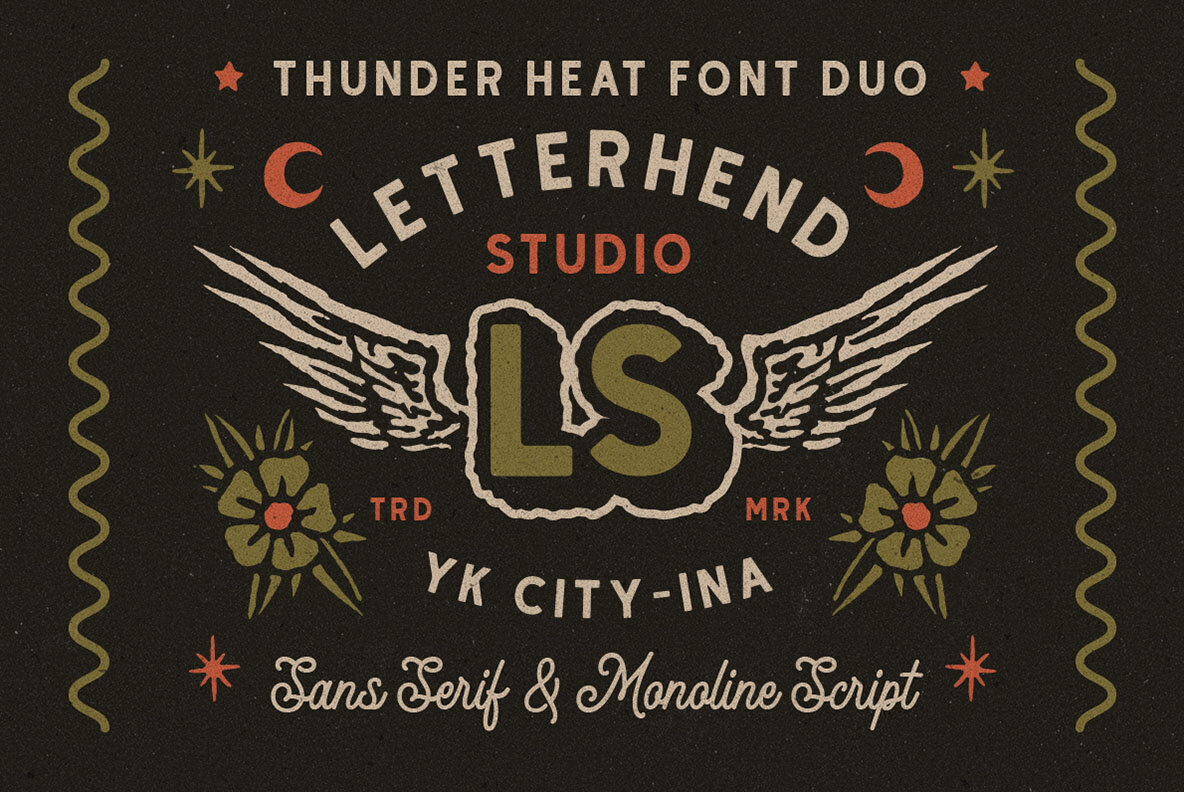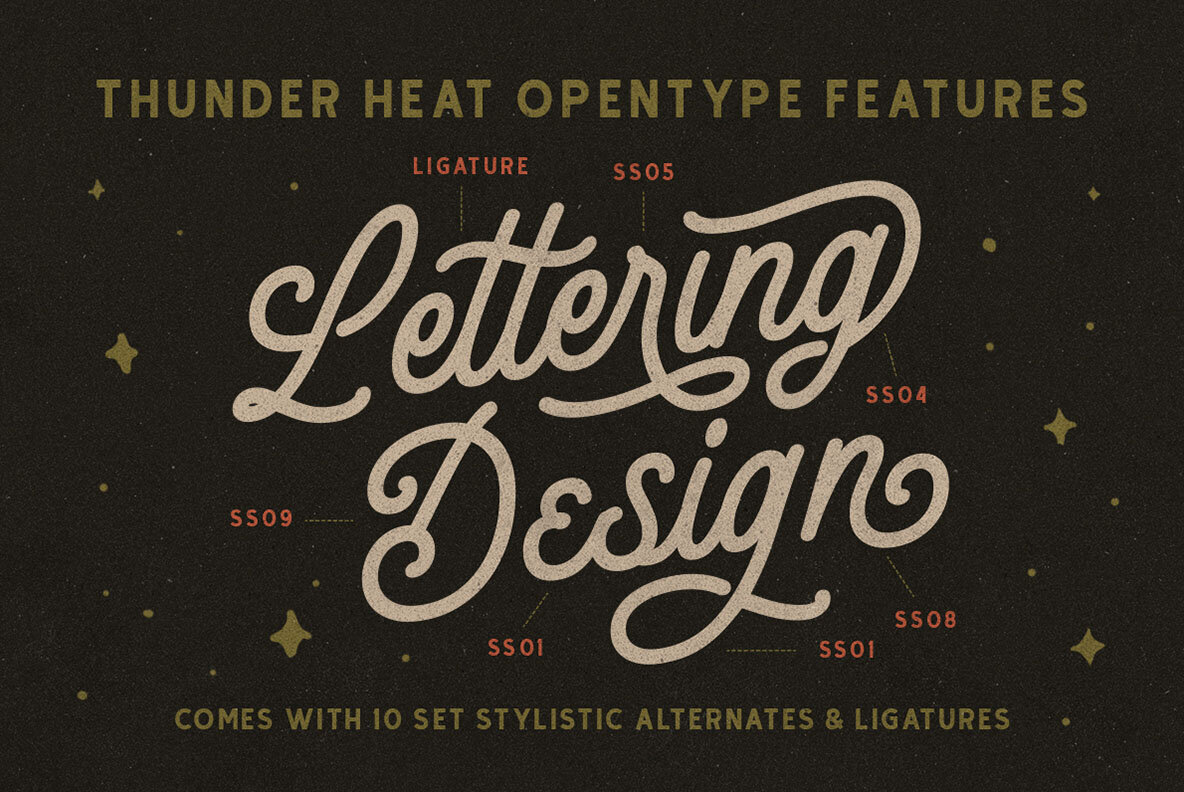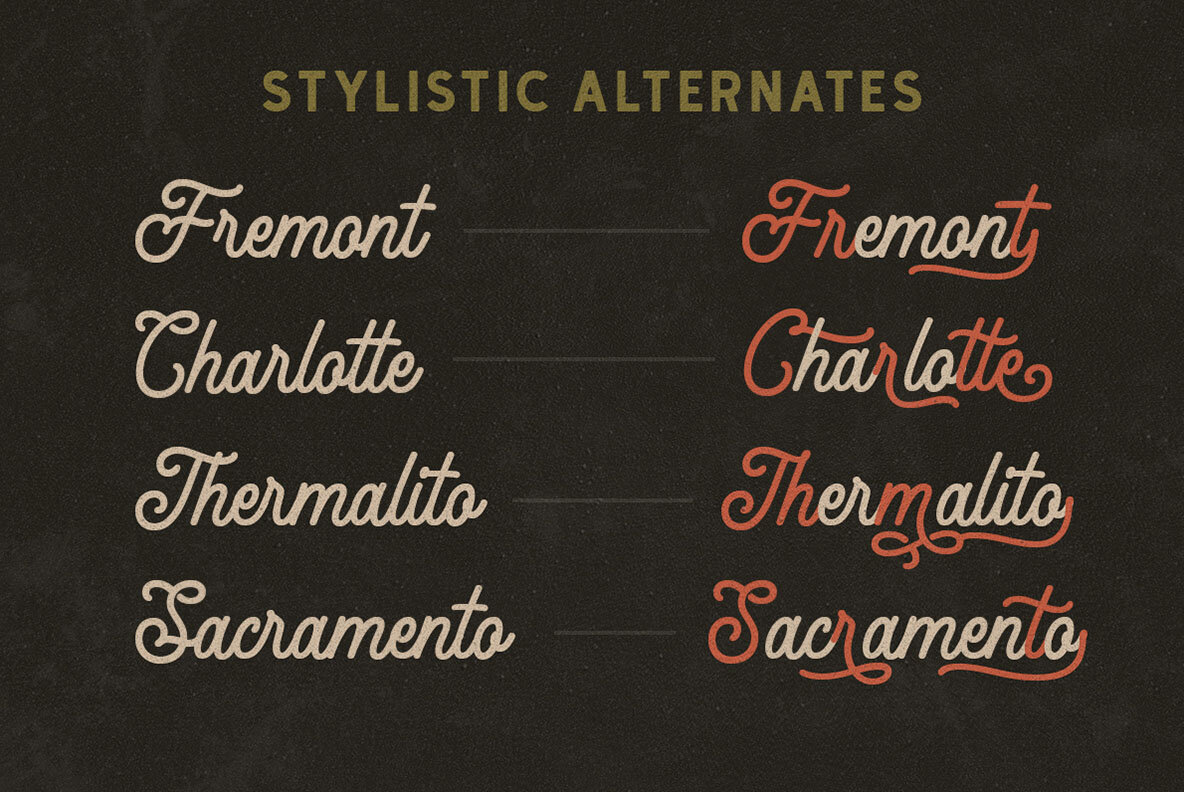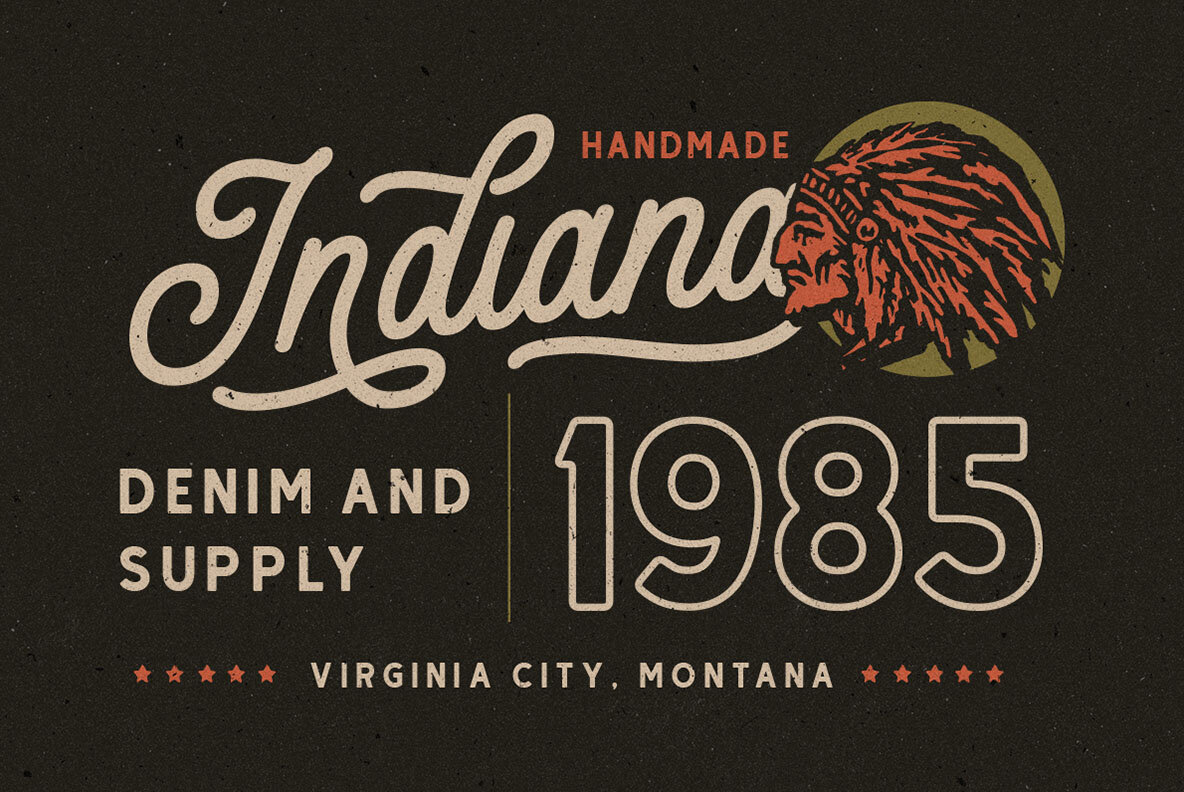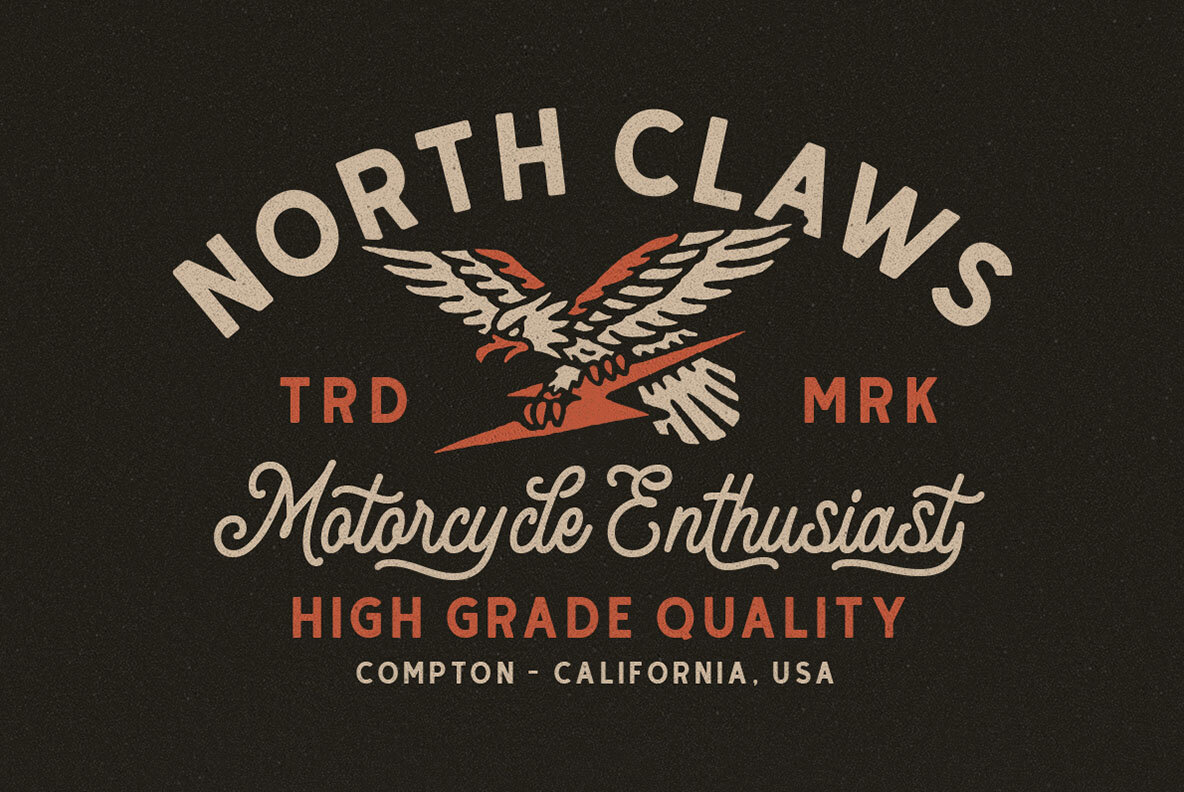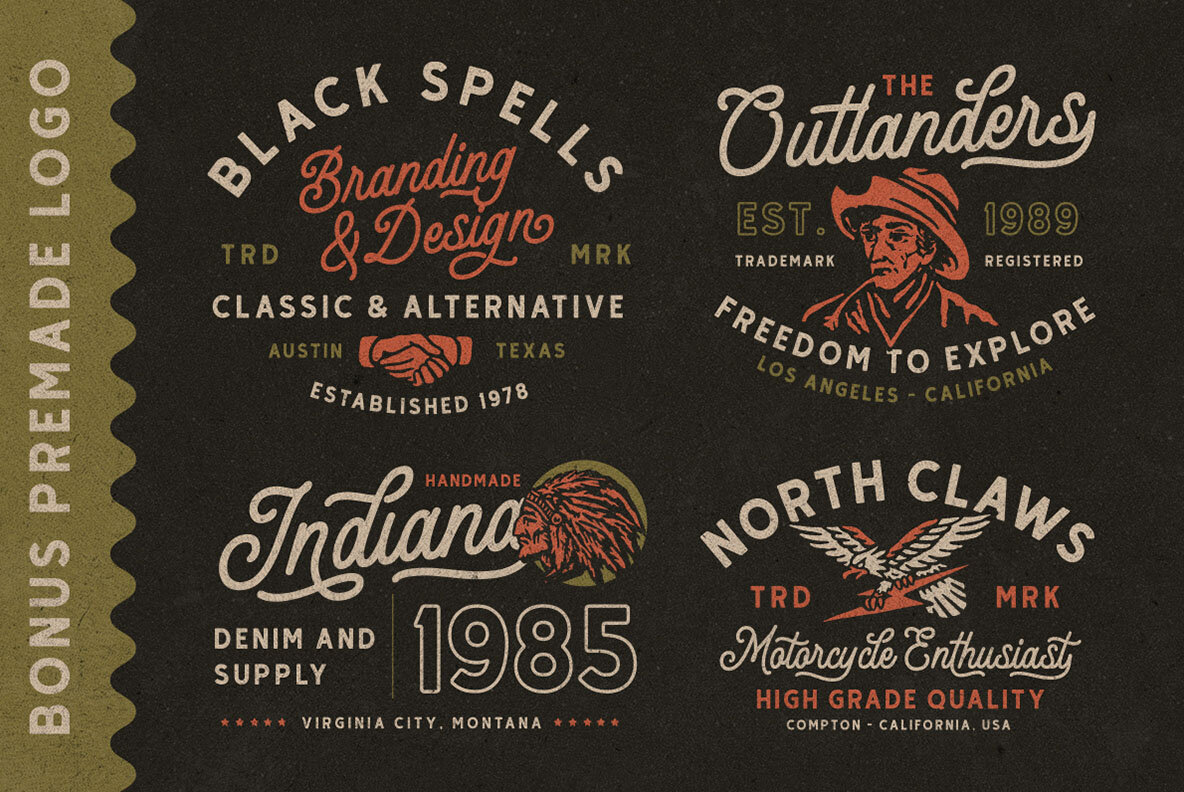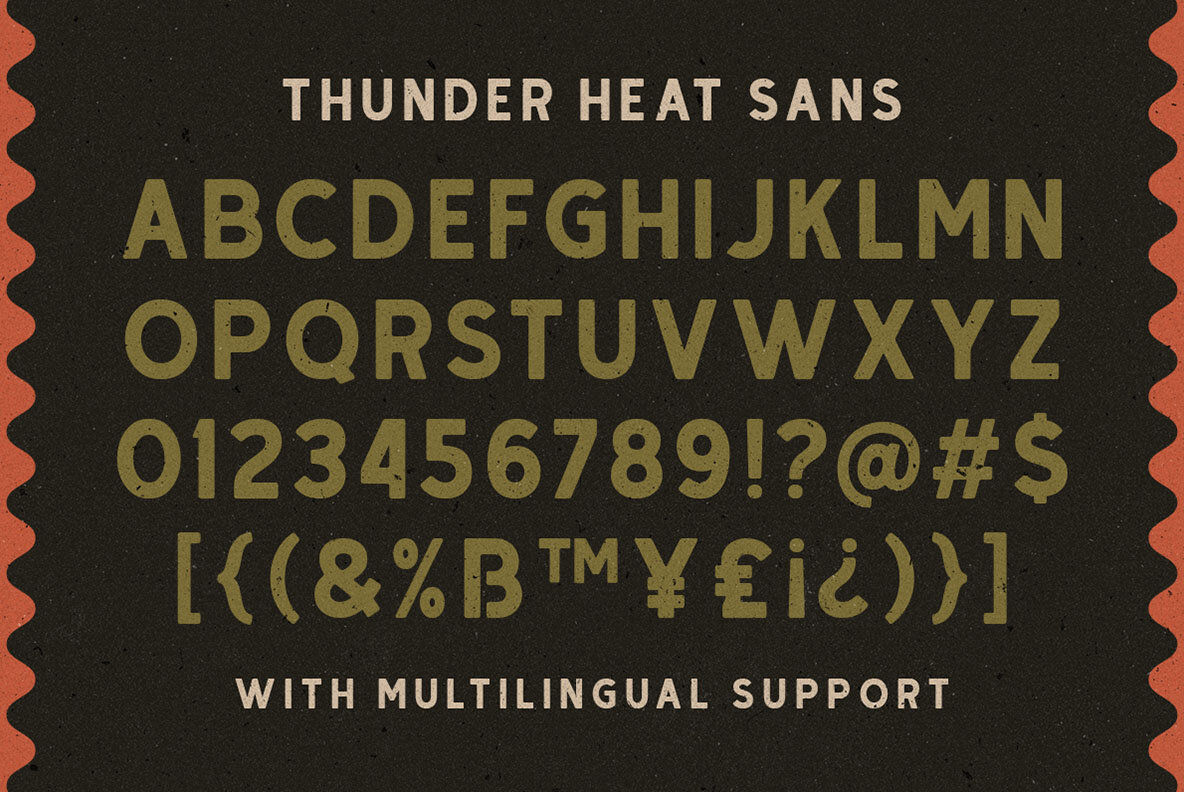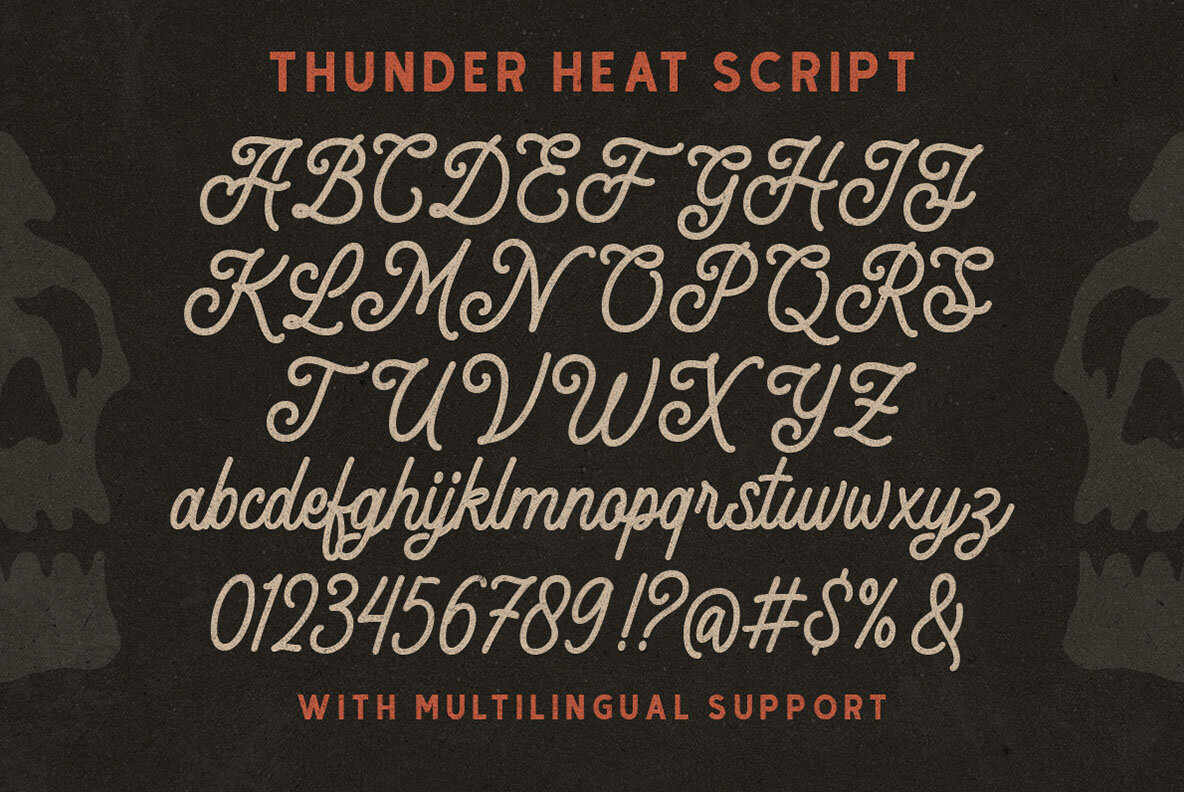
Thunder Heat Font
Thunder Heat offers a dynamic monoline font duo characterized by its classic appeal. This typeface allows flexibility, enabling you to switch between sans serif and script styles to best suit your design needs. It includes bonus illustrations and pre-made logos, making it ideal for logos, invitations, labels, magazines, books, greeting and wedding cards, packaging, fashion, makeup, stationery, novels, and various advertising purposes. For optimal results, use a program that supports OpenType features and Glyphs panels, such as Adobe applications and Corel Draw, to access all available Glyph variations.Thunder Heat: Versatile Monoline Font Duo